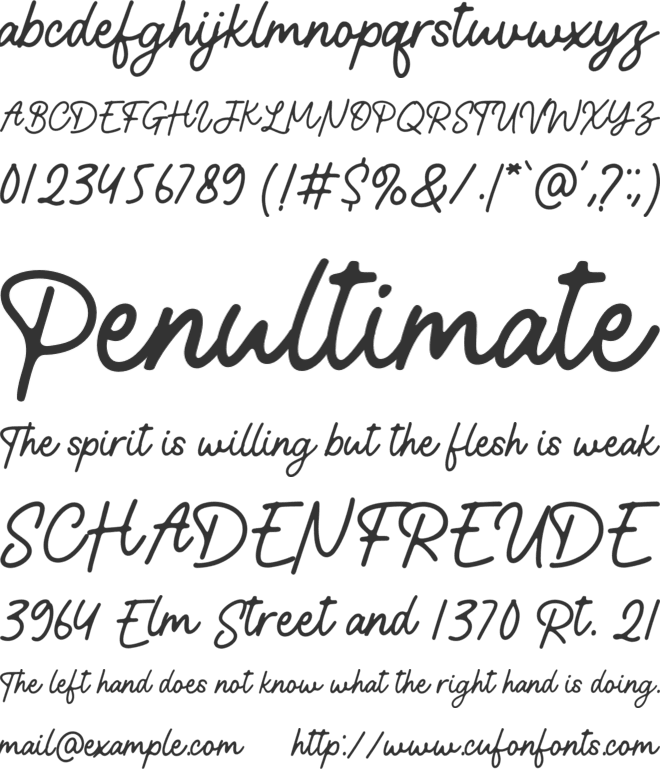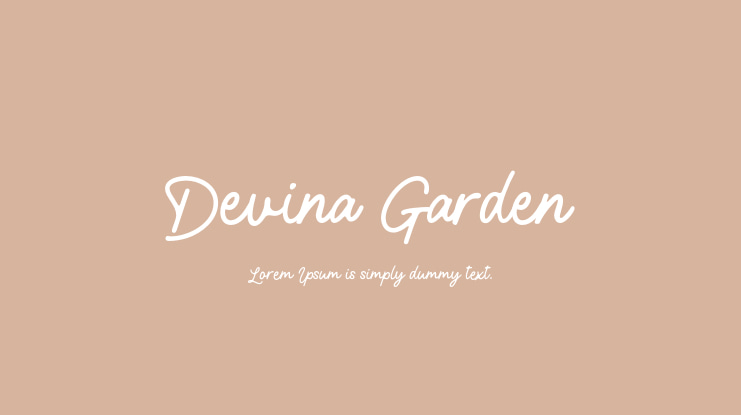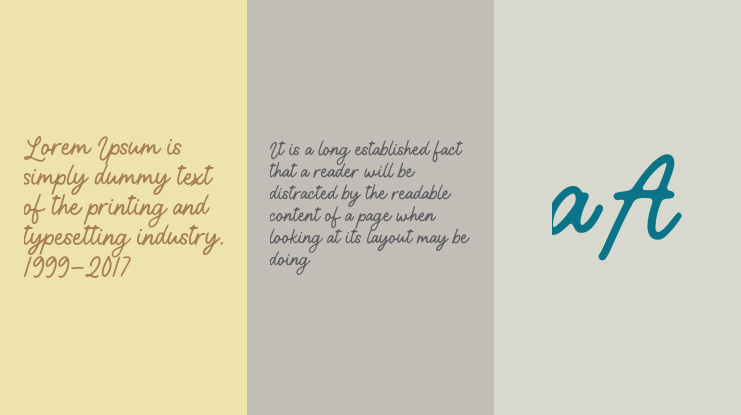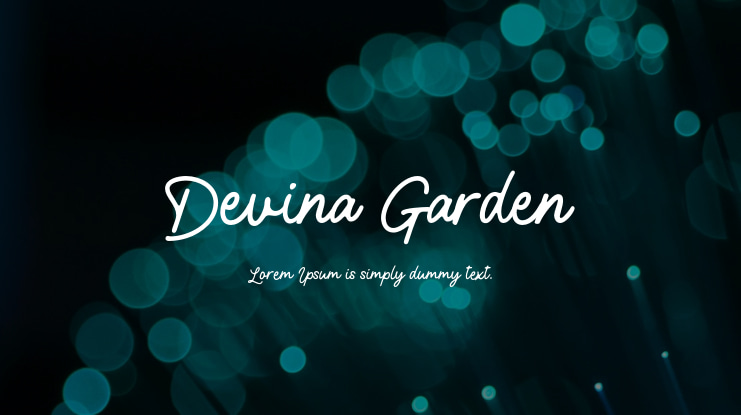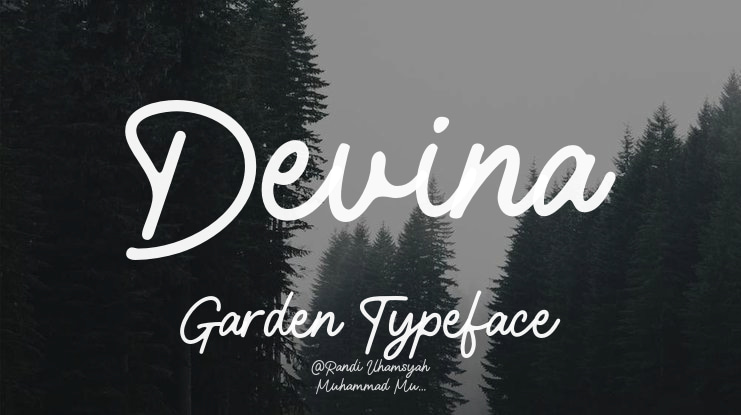
Devina Garden Font
Randi Ilhamsyah Muhammad Muammar
Devina Garden is a sans script font created with a modern handwriting style. This font includes uppercase, lowercase, symbols, multi-language support, and alternates.